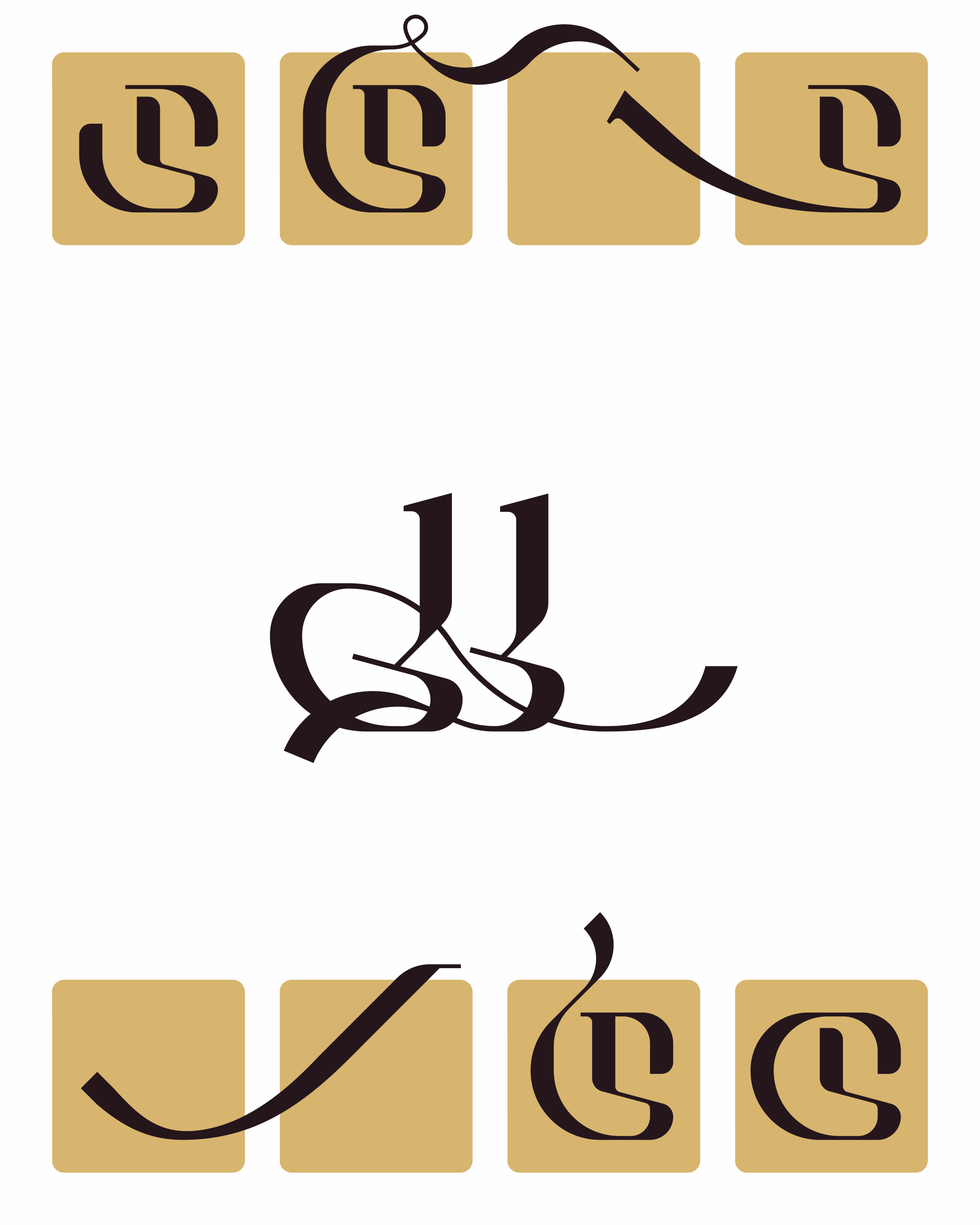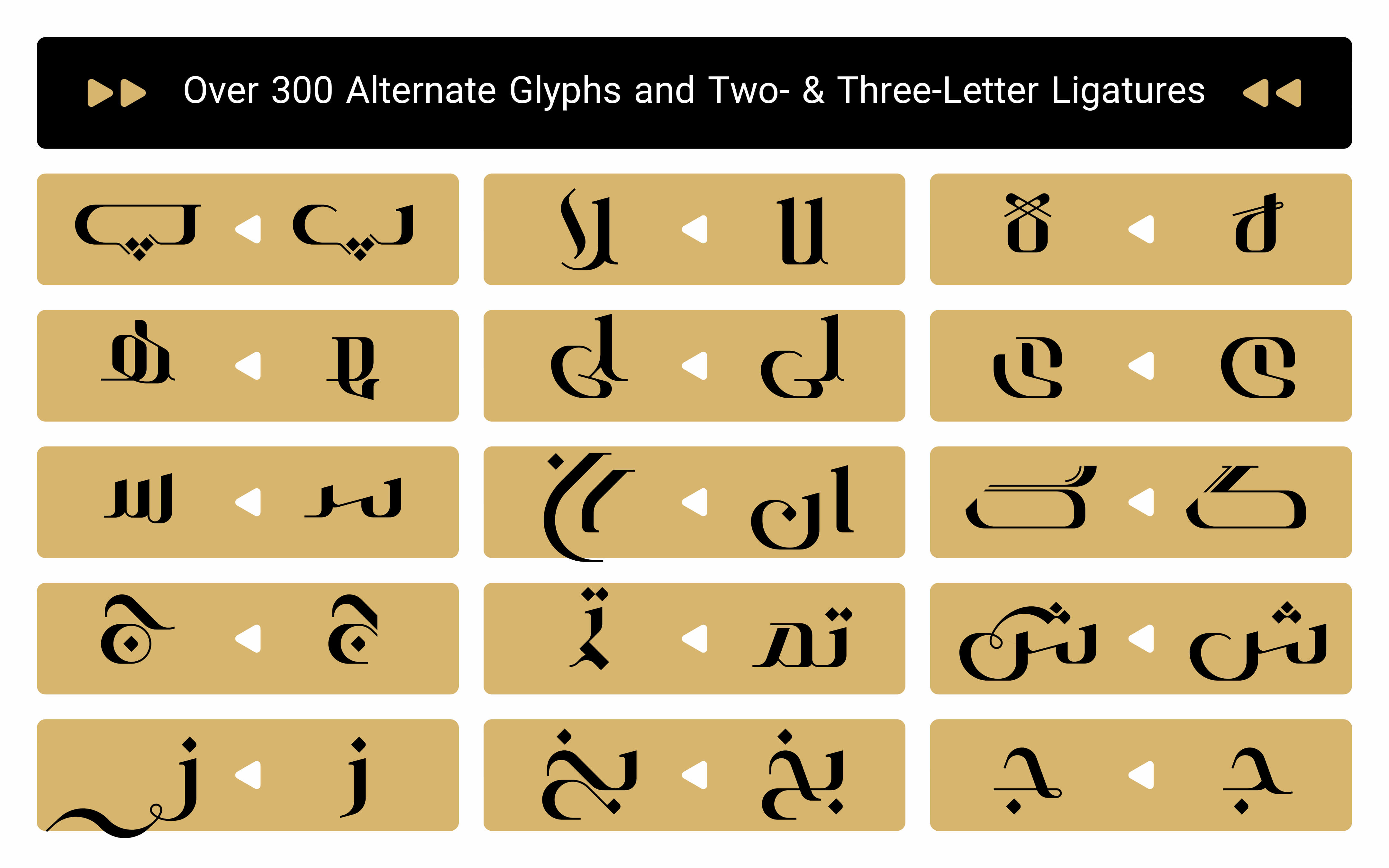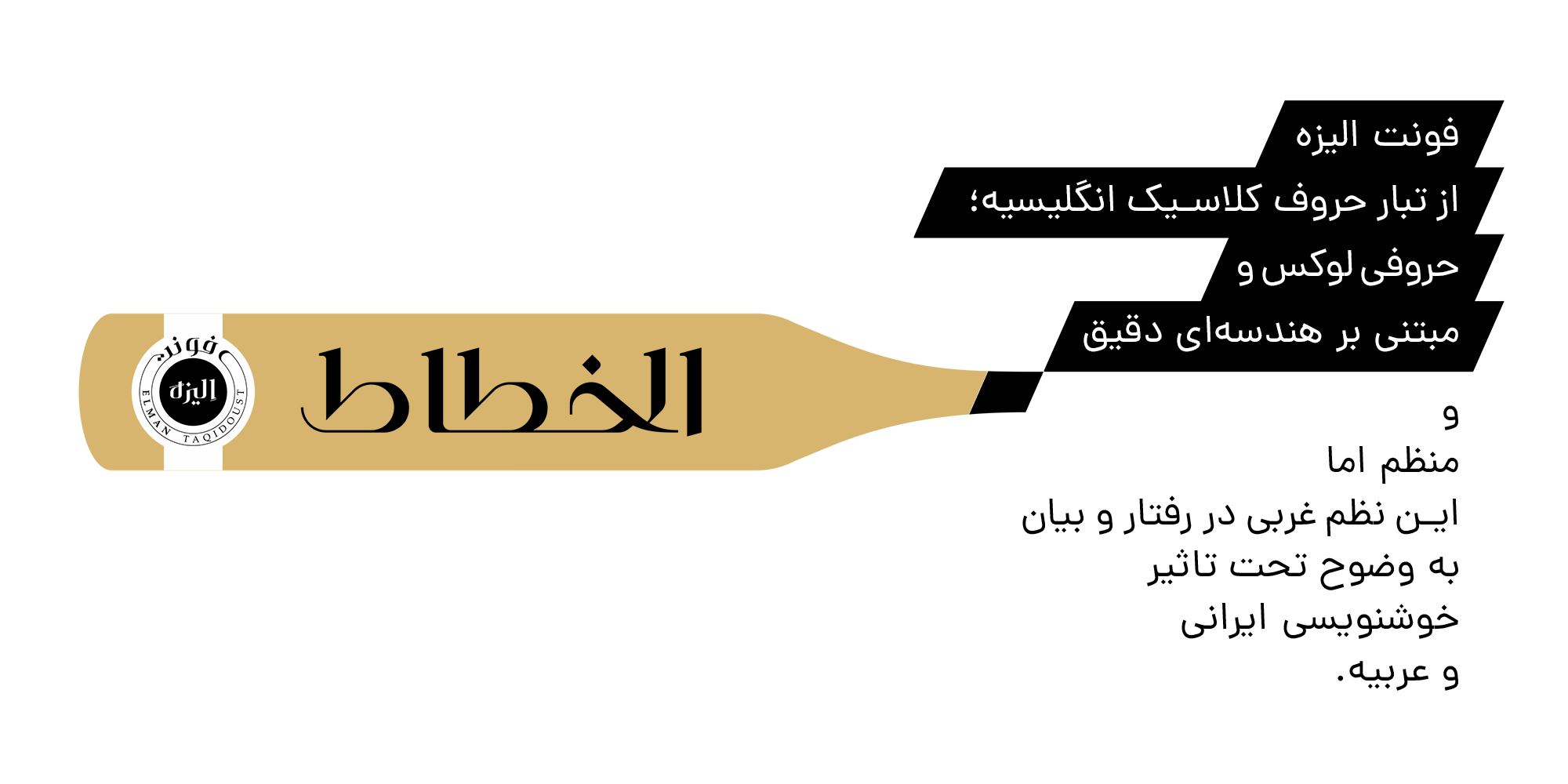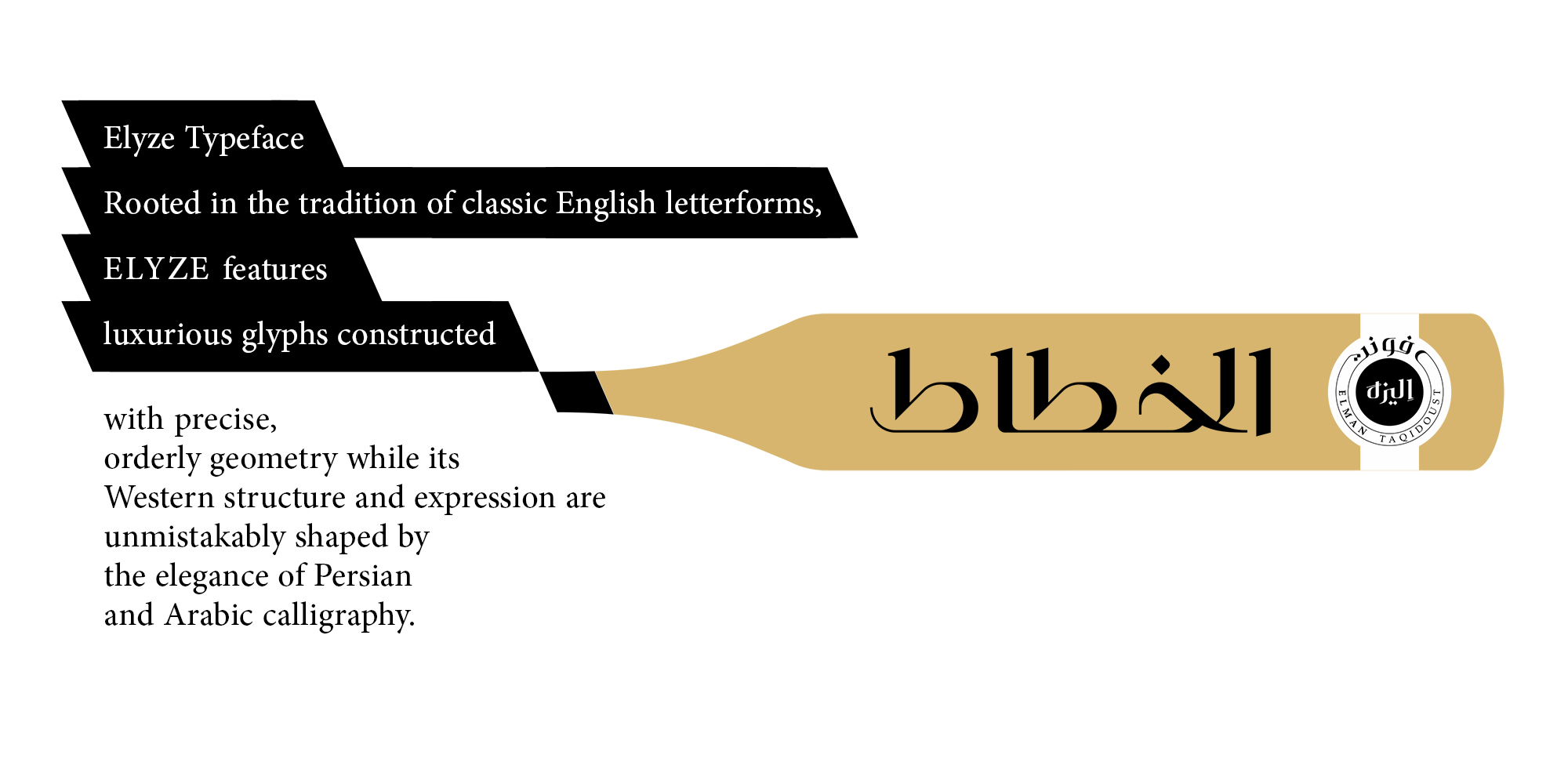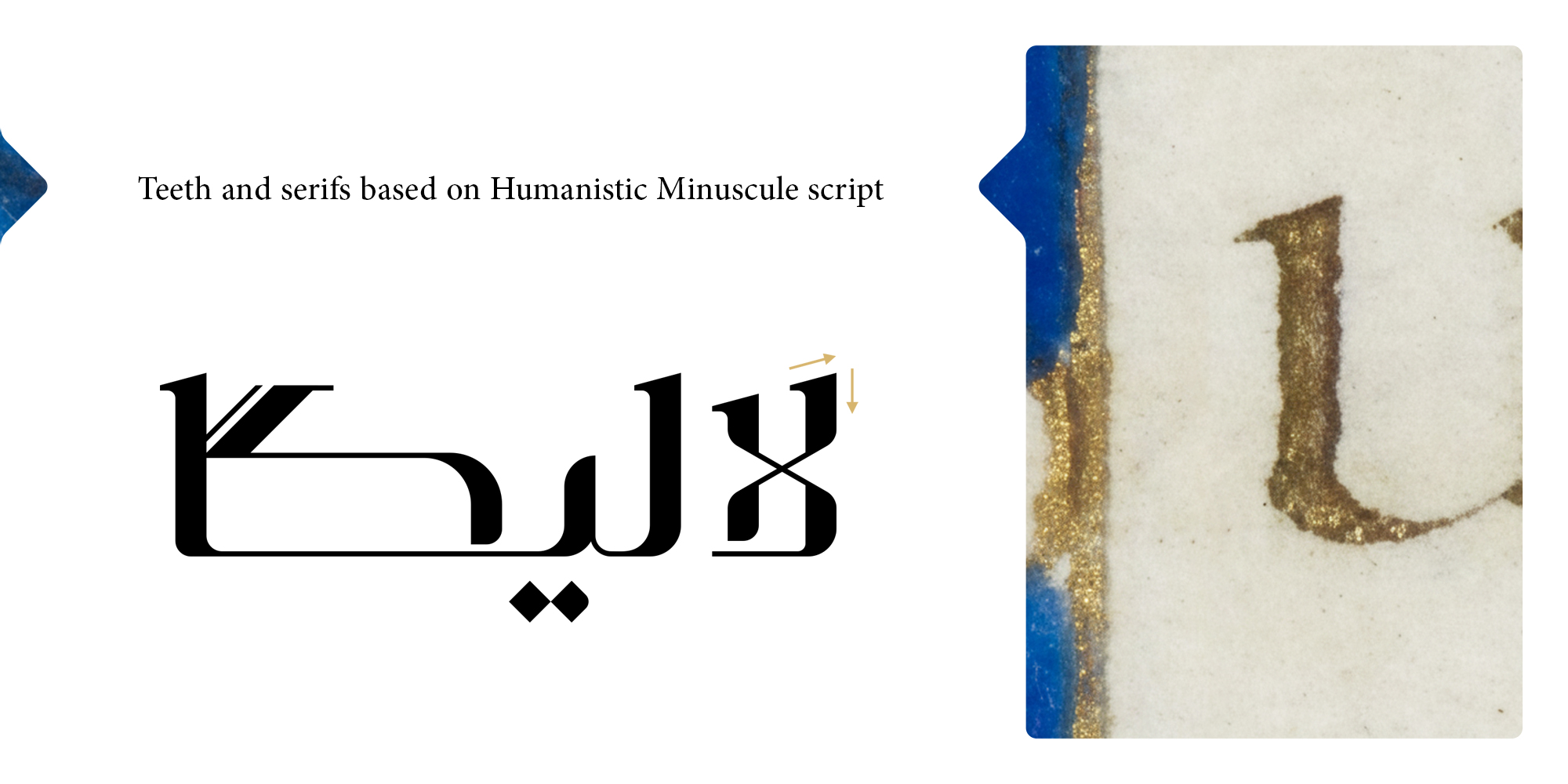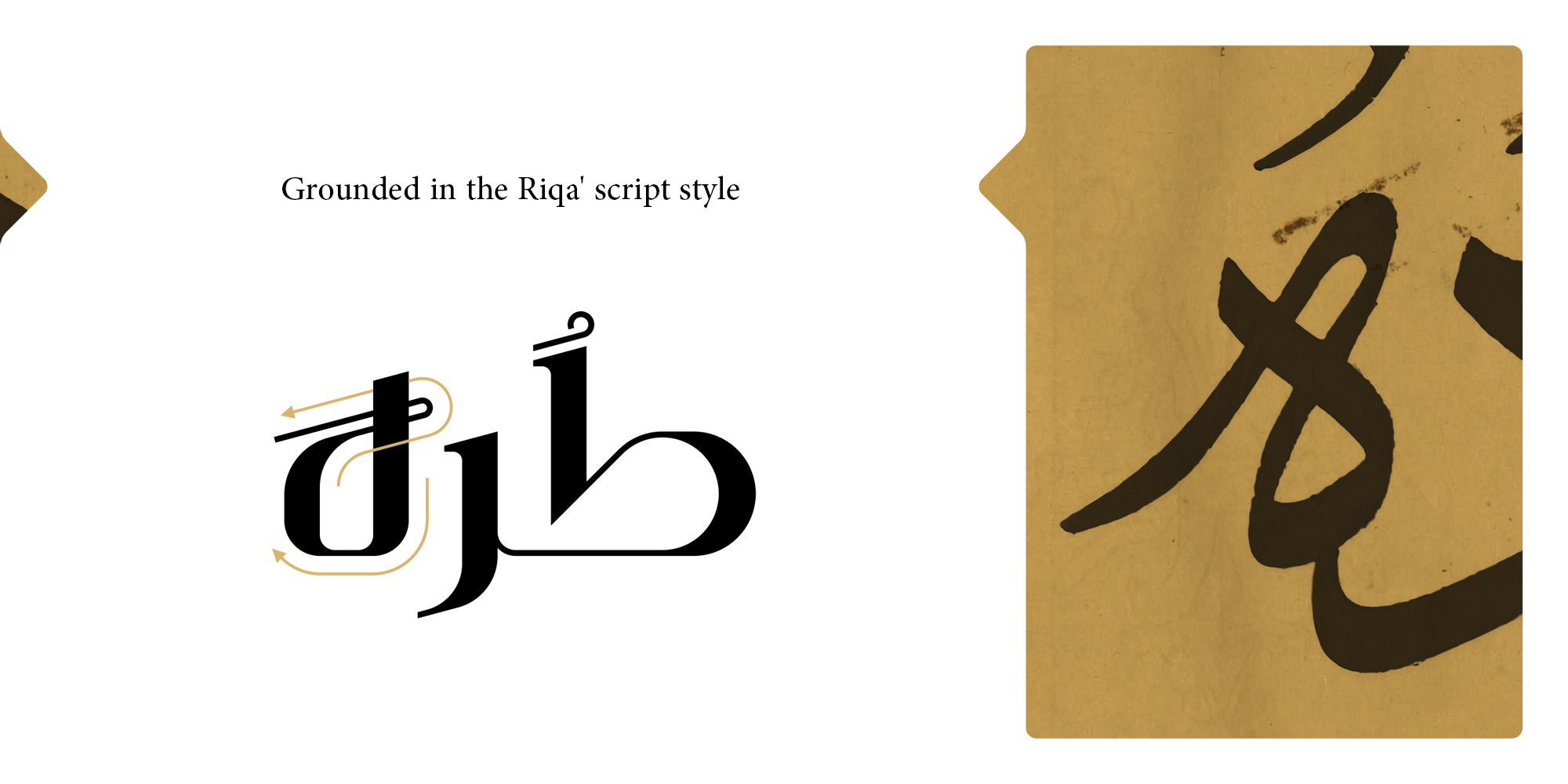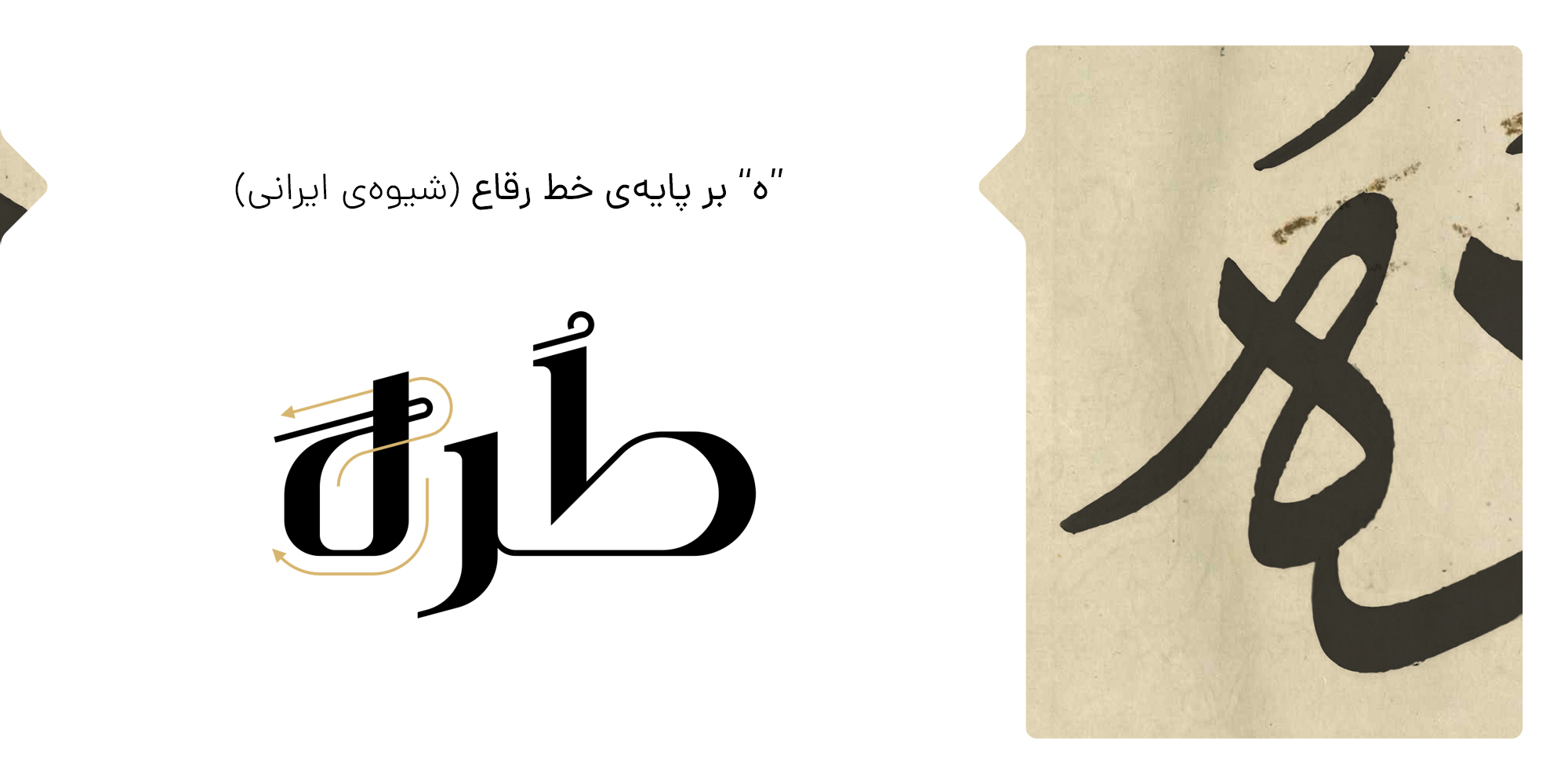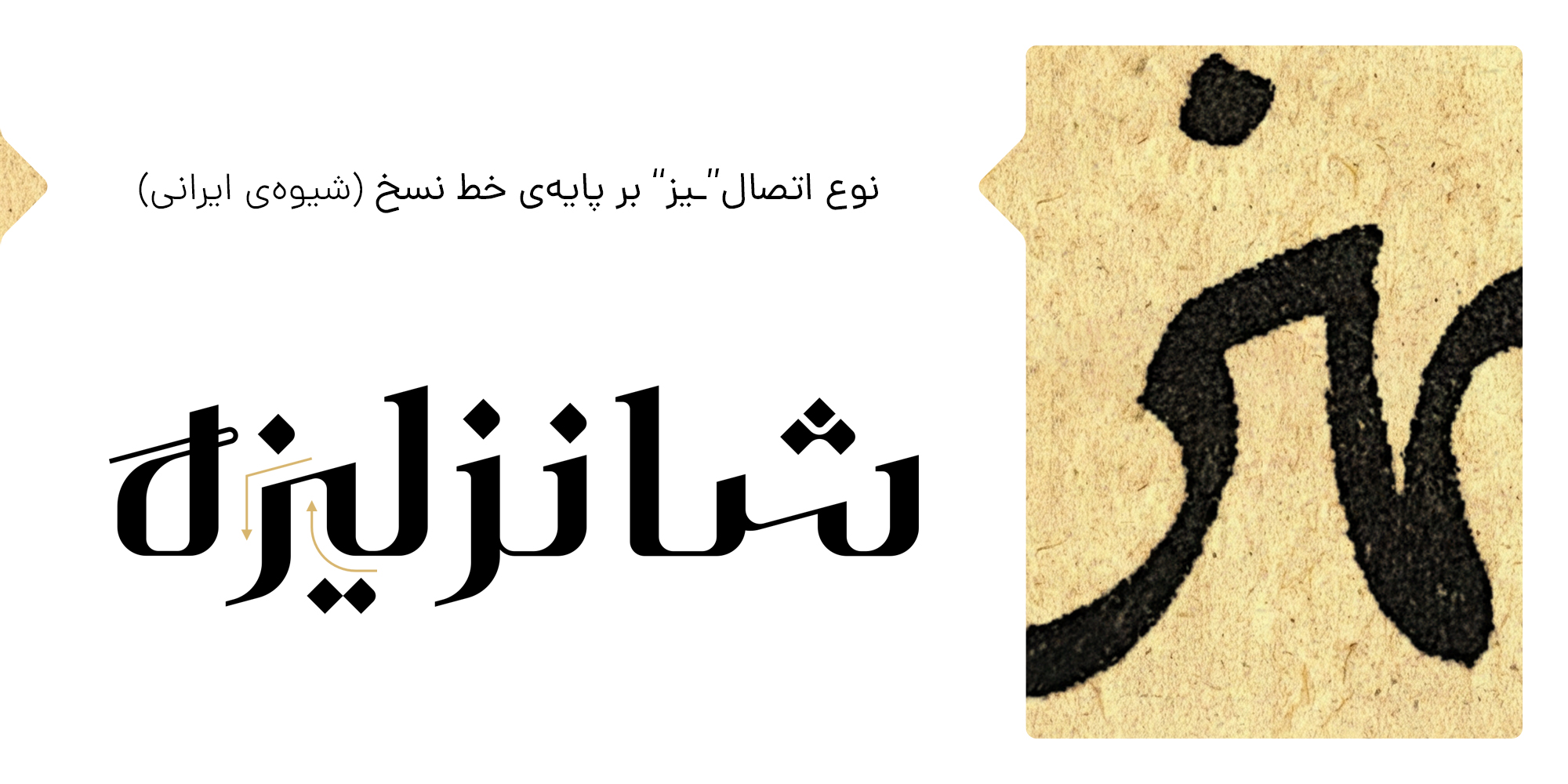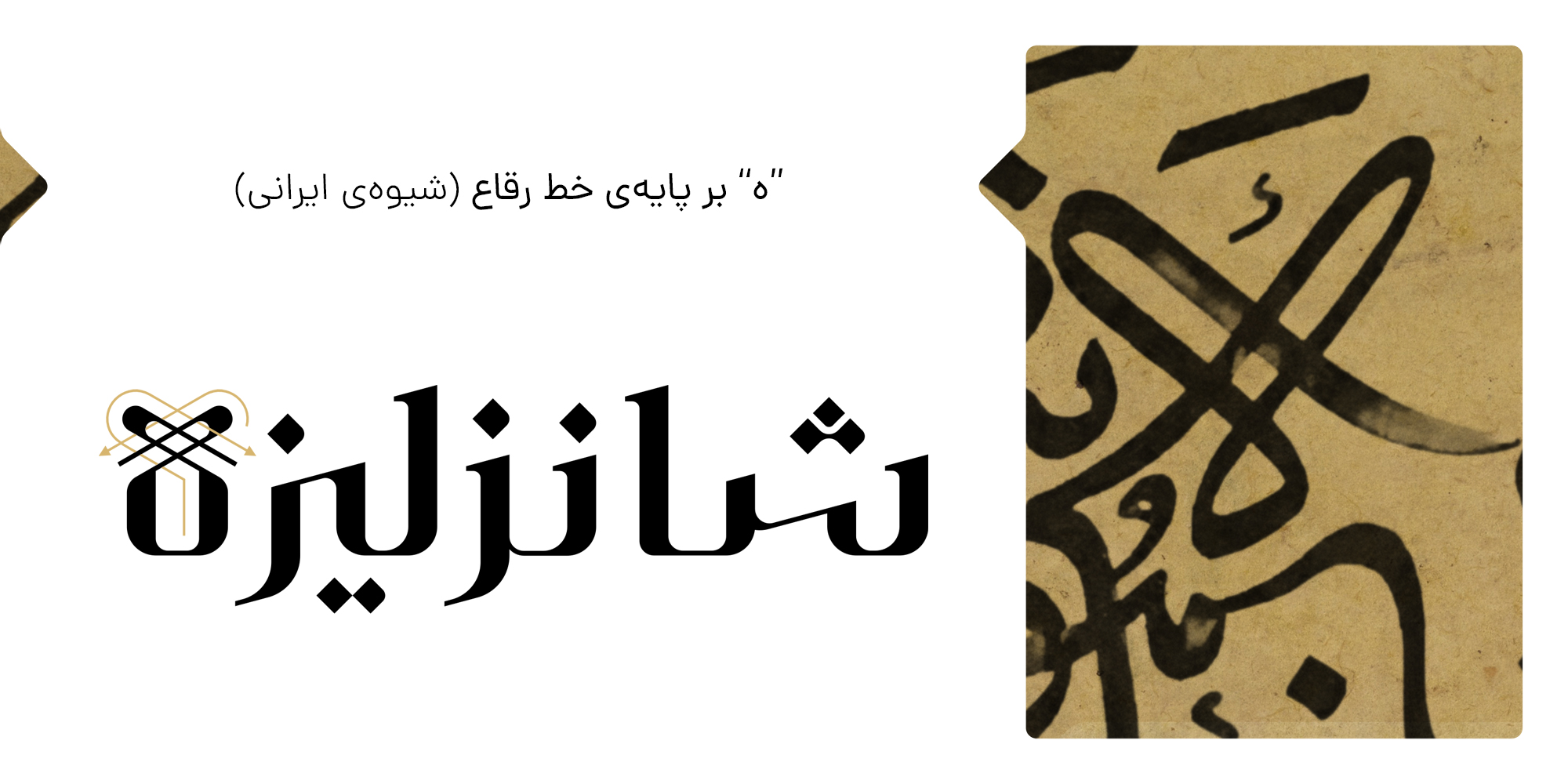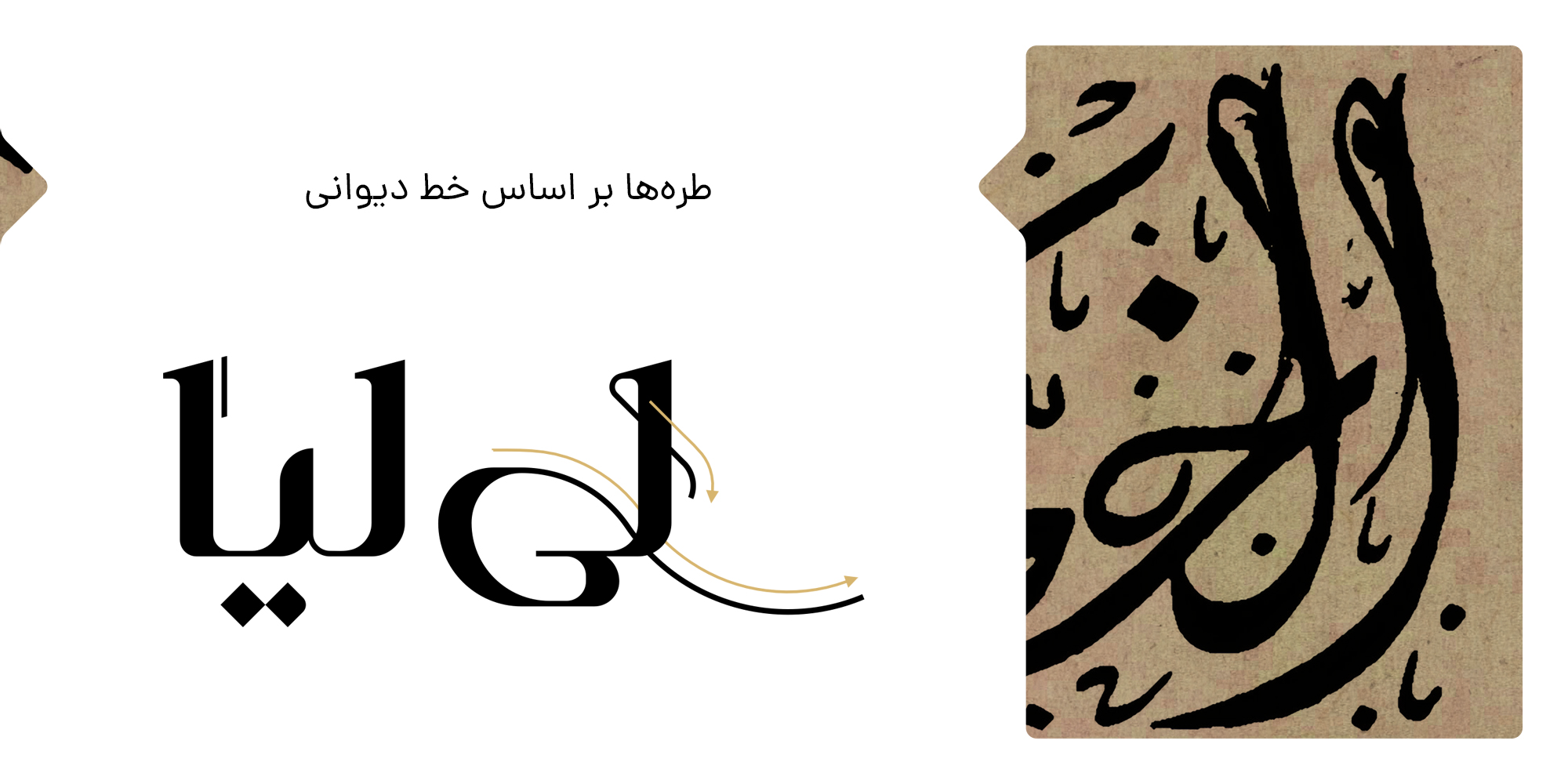
Elize
Elize Typeface A luxurious, theatrical display font featuring intelligent ligatures and fluid connections. It remains highly readable while delivering delightfully unpredictable, artistic flair. The ideal choice for designing sophisticated logotypes, premium brand identities, high-end fashion campaigns, and eye-catching headlines.